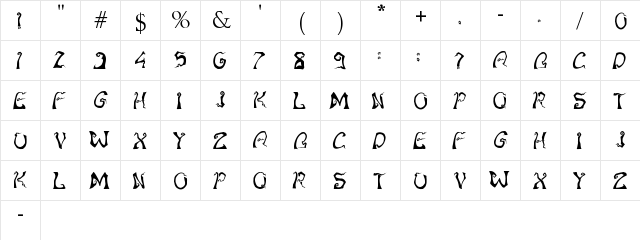
Stranglethorn Regular
Design Context for Stranglethorn Typeface
Stranglethorn is a composed and adaptable typeface that performs quietly and consistently across a wide range of design contexts.